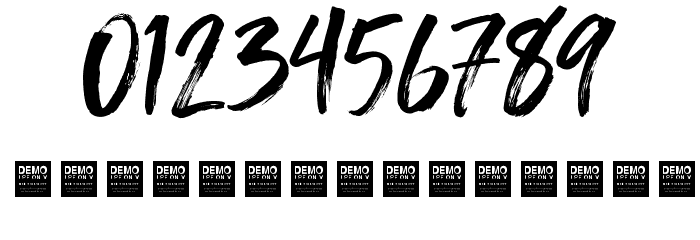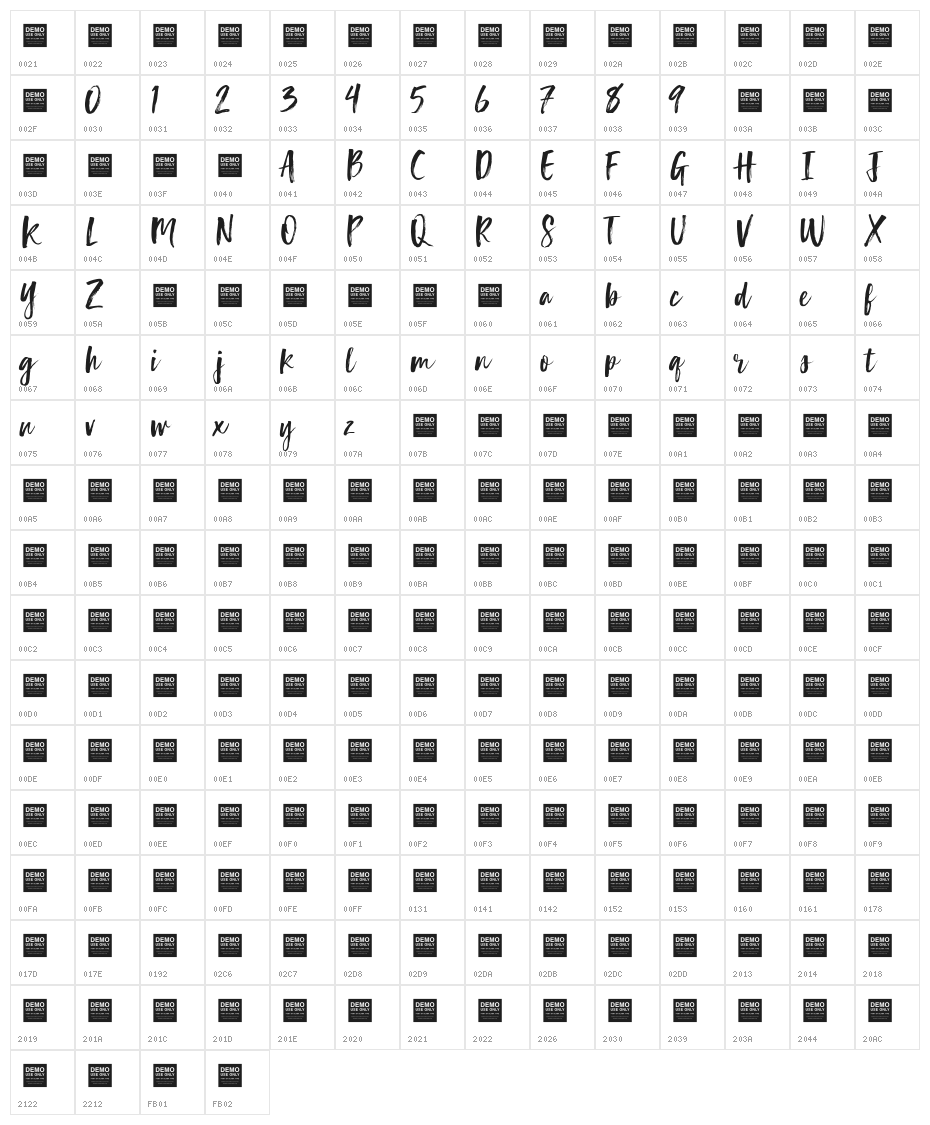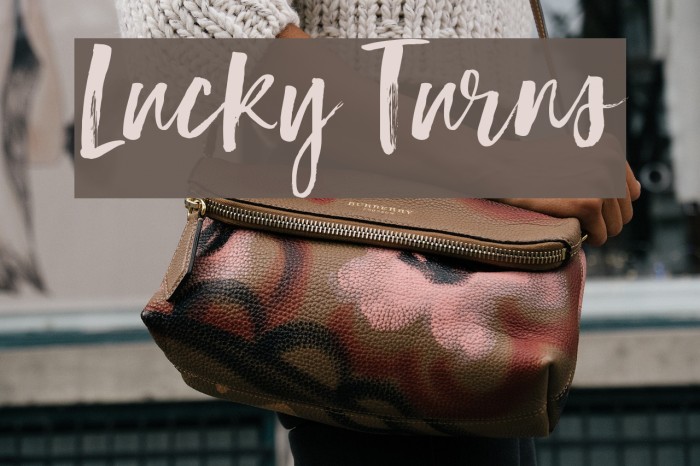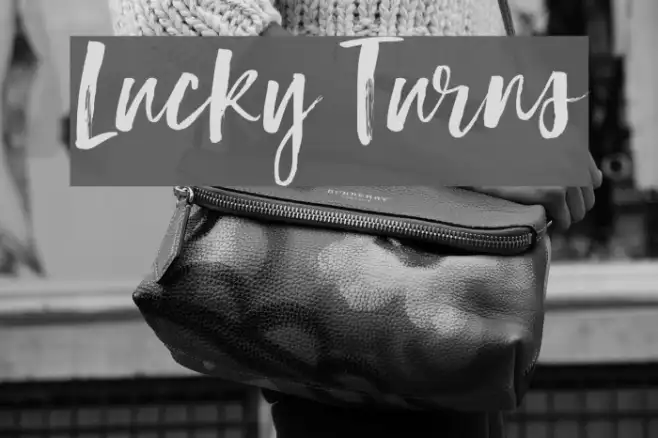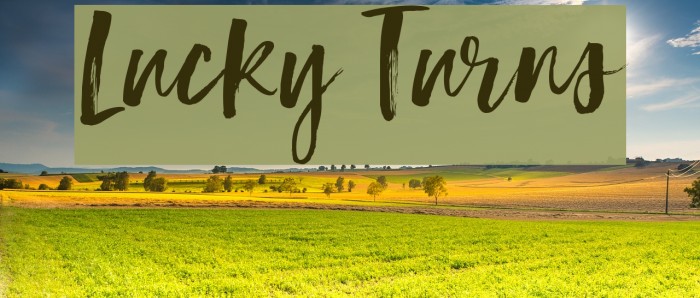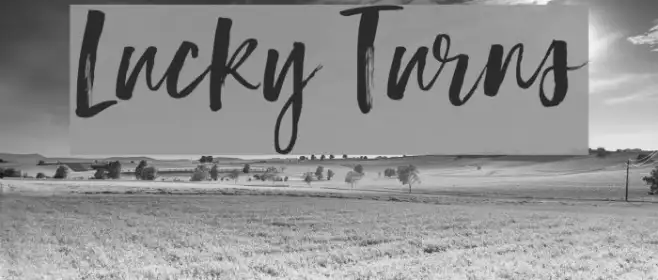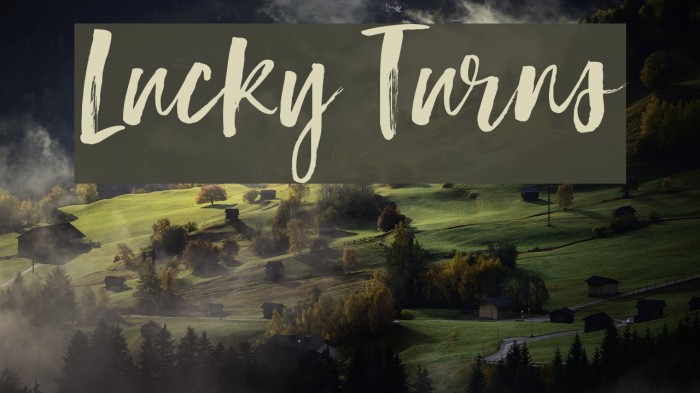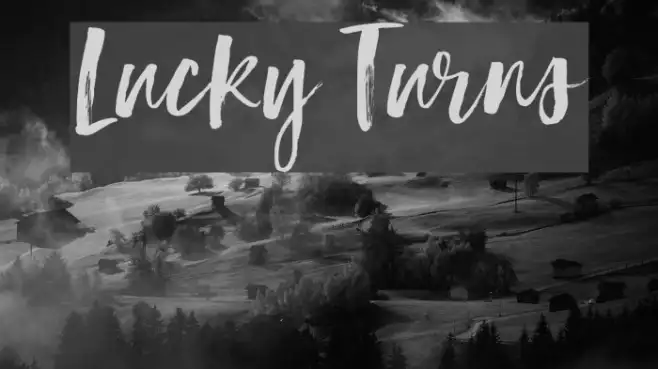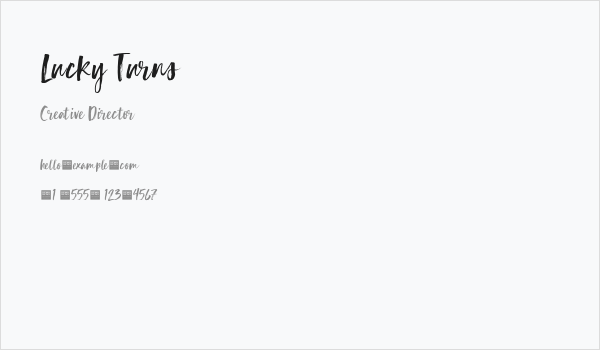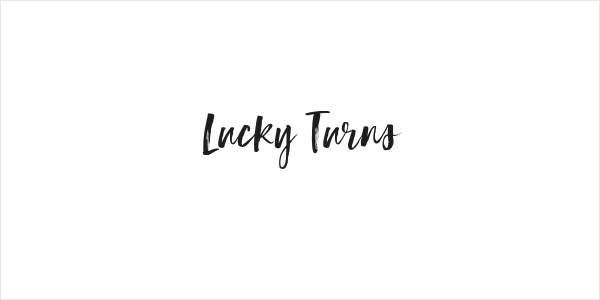
Lucky Turns Font
Lucky Turns Description
This font features a bold and expressive handwritten style, characterized by its brush-like strokes and dynamic flow. The uppercase letters are robust and energetic, while the lowercase letters maintain a fluid and natural appearance. The numbers are consistent with the overall style, offering a cohesive look. The font's design is reminiscent of modern calligraphy, with a touch of artistic flair that adds personality and charm to any text. Its unique character and high contrast make it suitable for creative projects that require a personal and artistic touch.
| Proposed Projects | Ideal for branding, invitations, posters, and social media graphics where a personal and artistic touch is desired. |